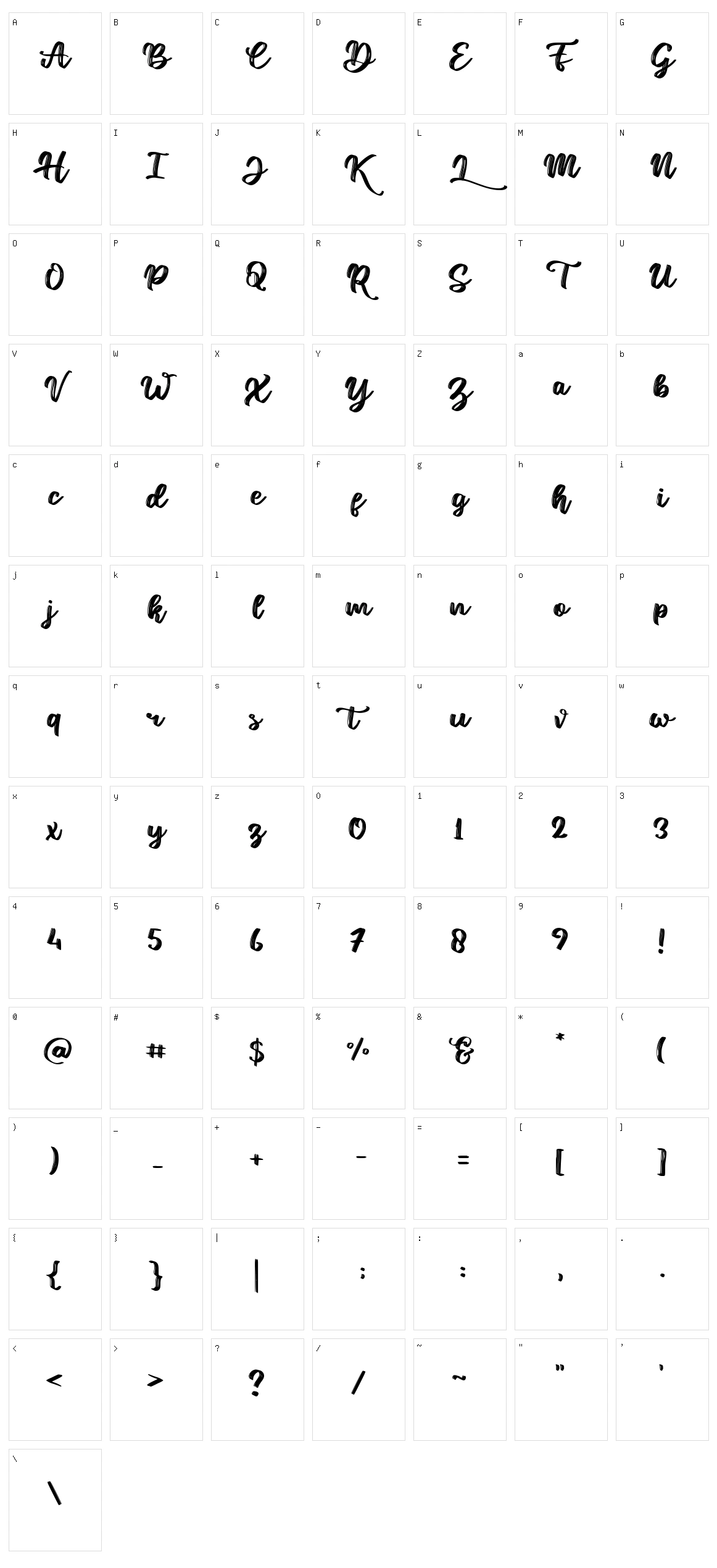
The free font Hotel Lorint is carefully designed by Abo Daniel Studio, showcasing a thoughtful balance of creativity and usability and falls under the Script font style. When you download the ZIP file, it contains only 1196.99 KB of font files, making it lightweight and quick to download. Please review the license details below to understand permitted usage and distribution rights. If license information is not available, we recommend using this font for personal projects only or contacting the author directly for commercial usage permissions.
HOTEL LORINT
- the brush script -